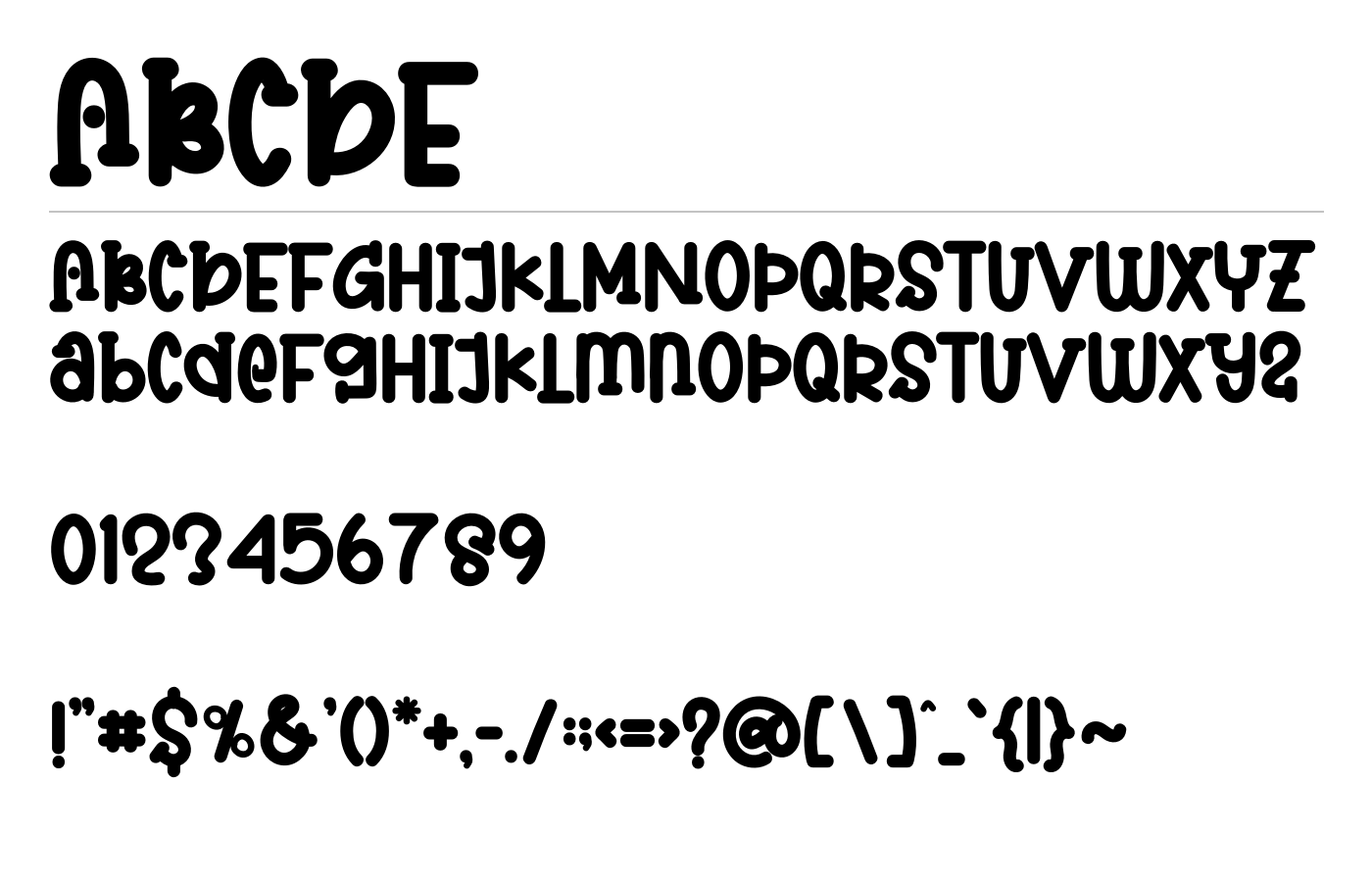
ABCDE Font is a playful and bold sans serif typeface with rounded, quirky letterforms that give it a fun and approachable feel. Its unique, chunky shapes and irregular details make it ideal for creative headlines, children’s books, or branding that aims to stand out with a whimsical and friendly personality. This font works well in display settings where a lively, informal vibe is desired.
ABCDE Font